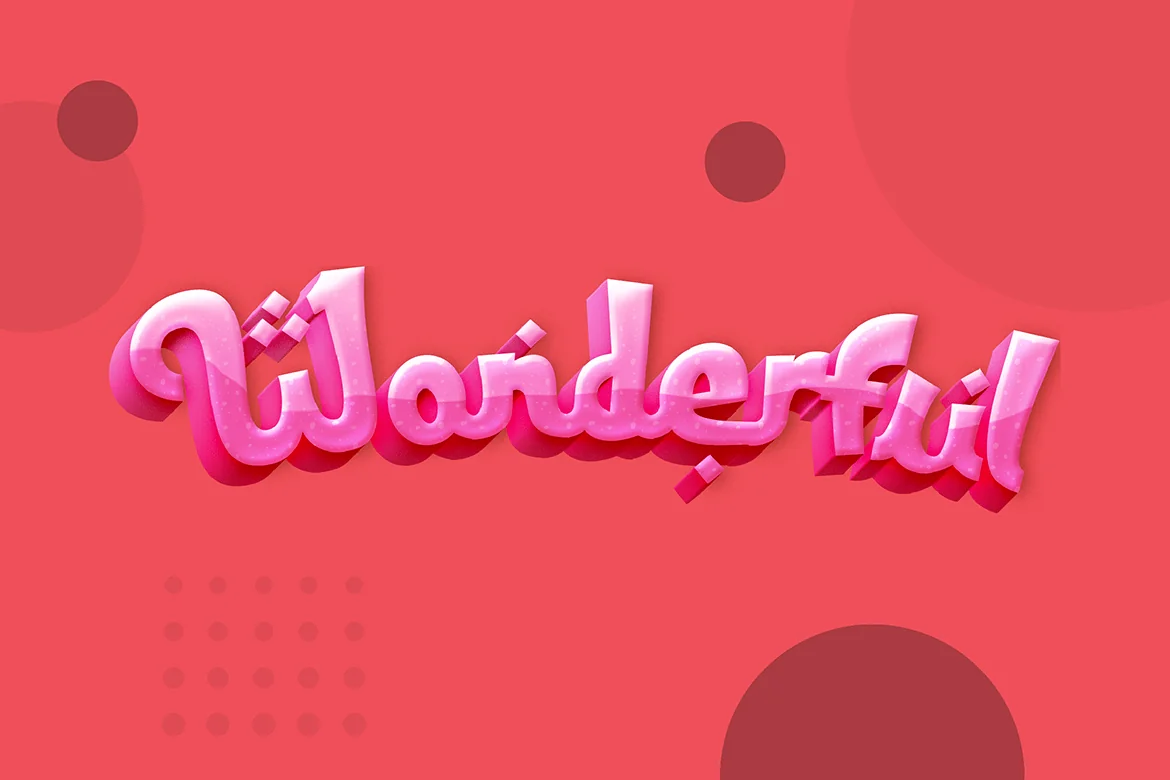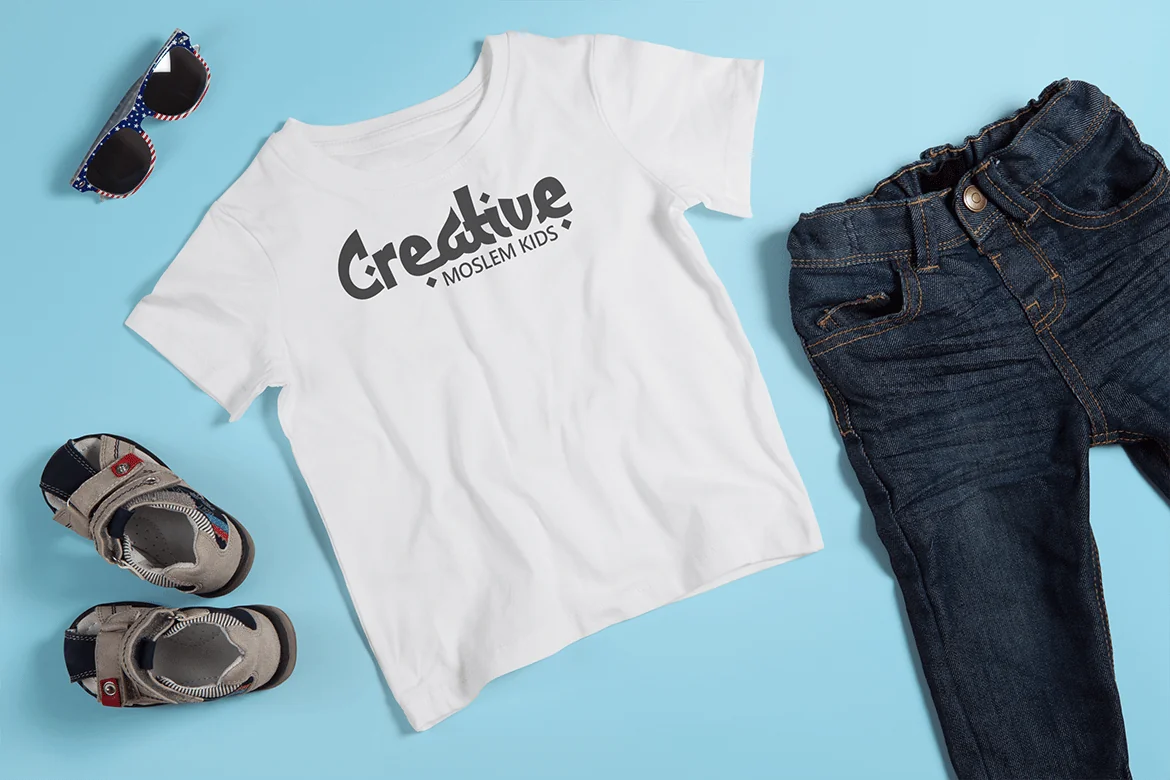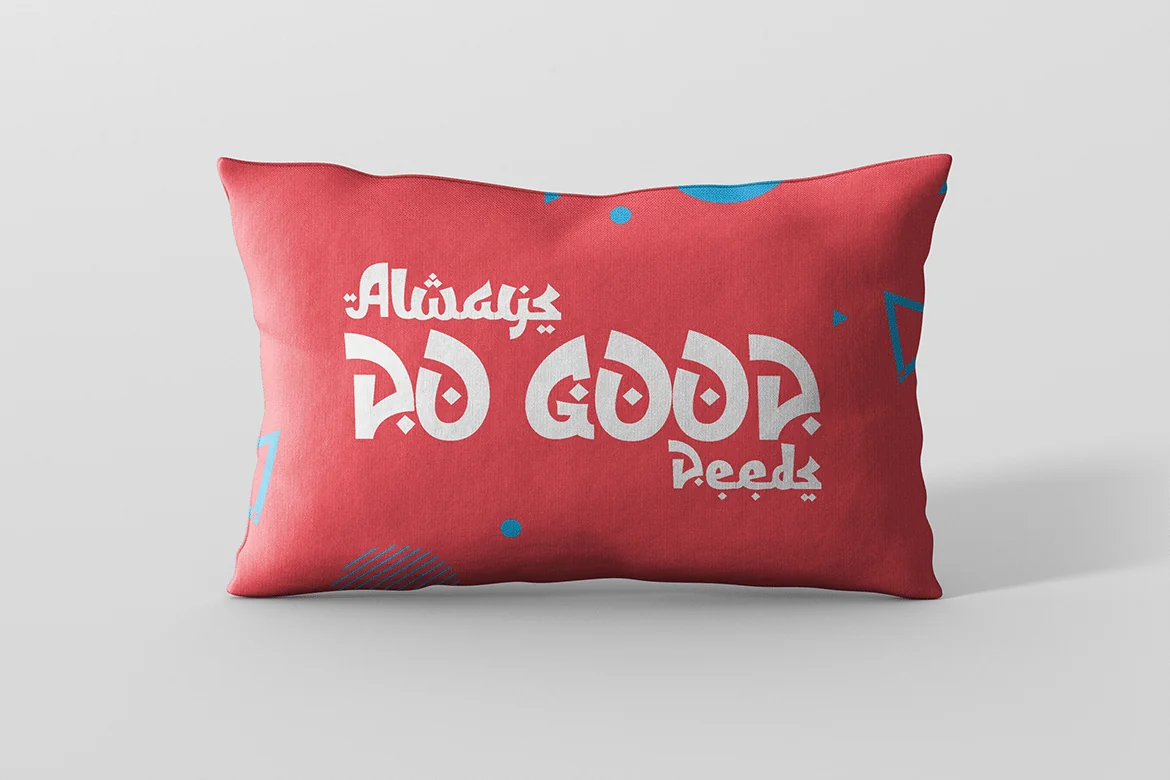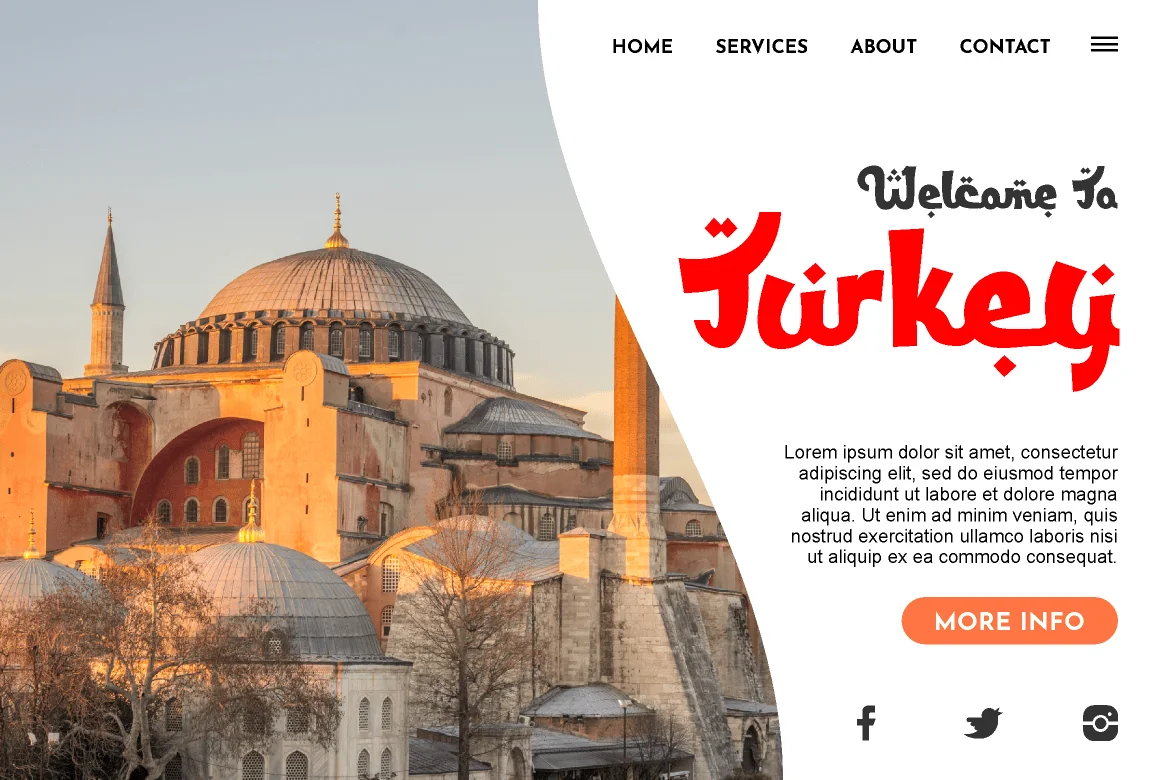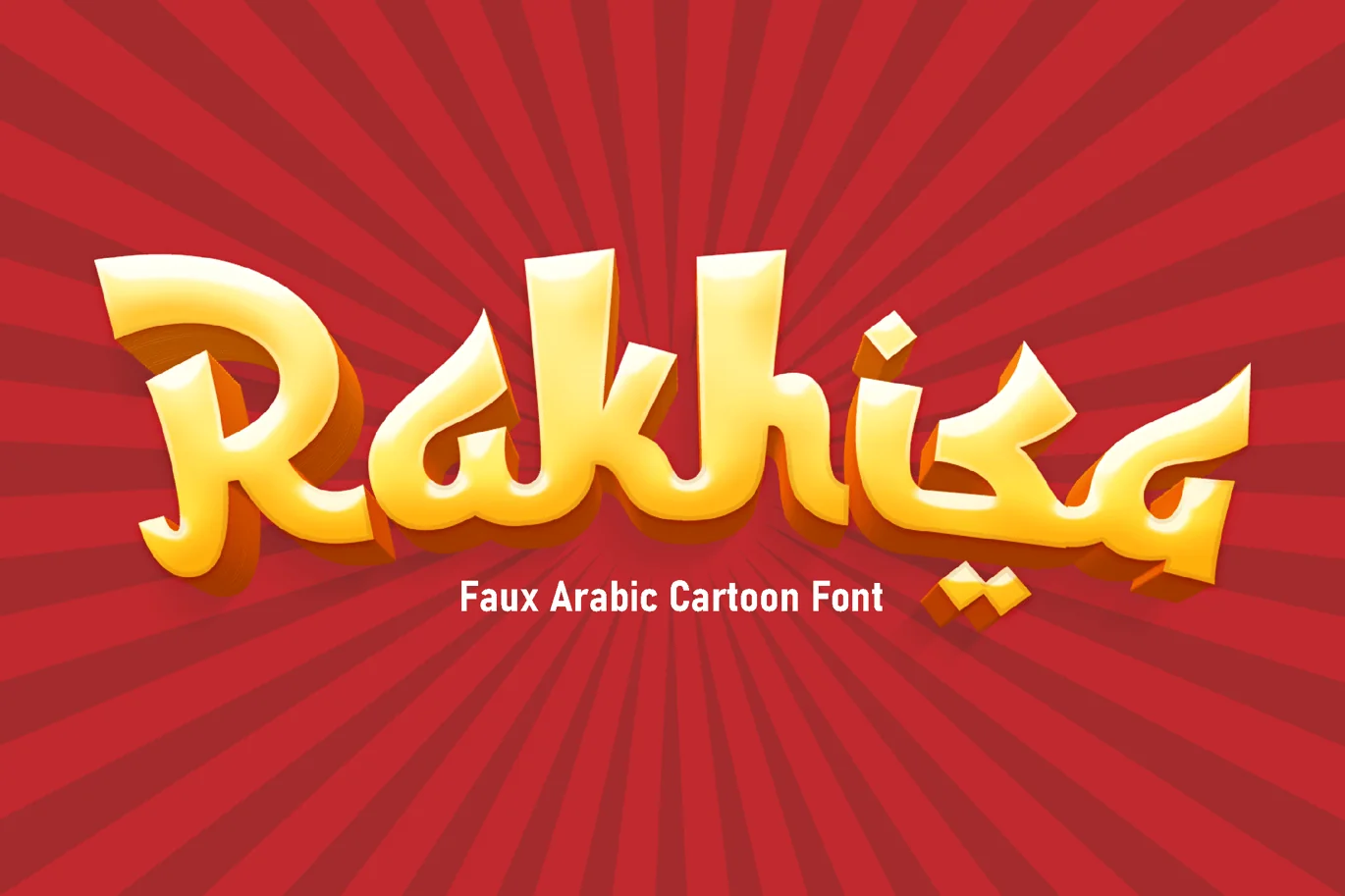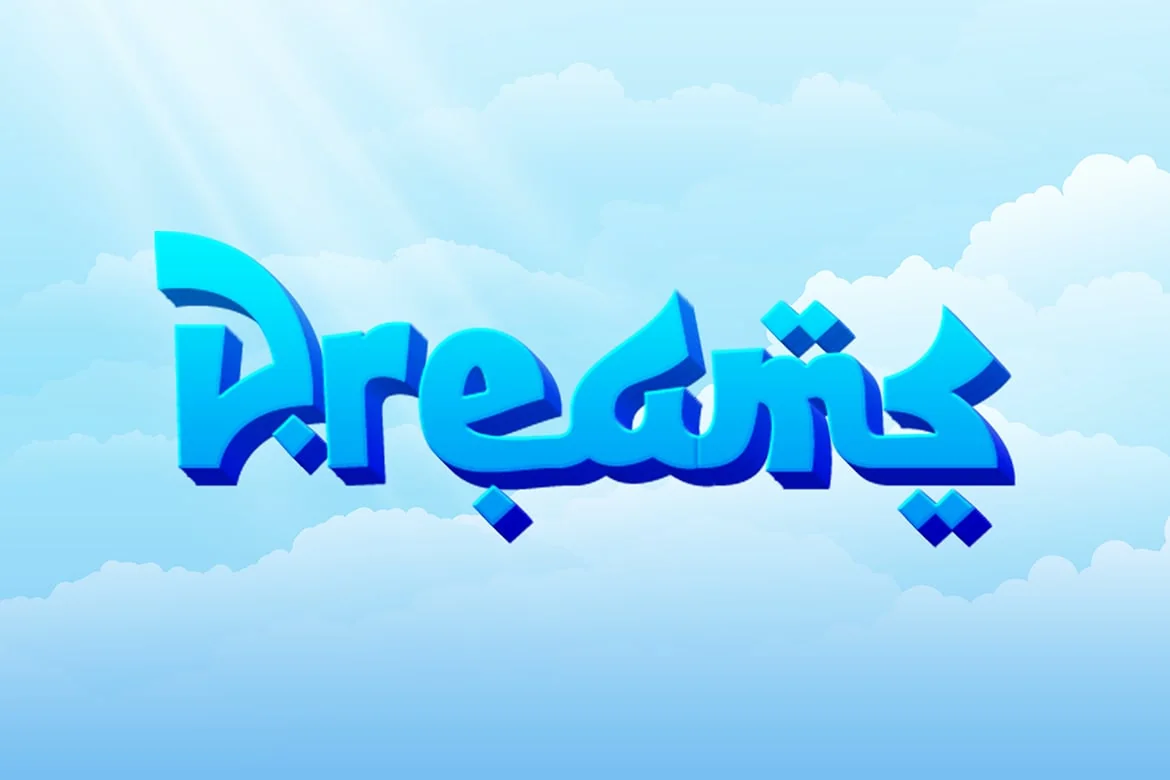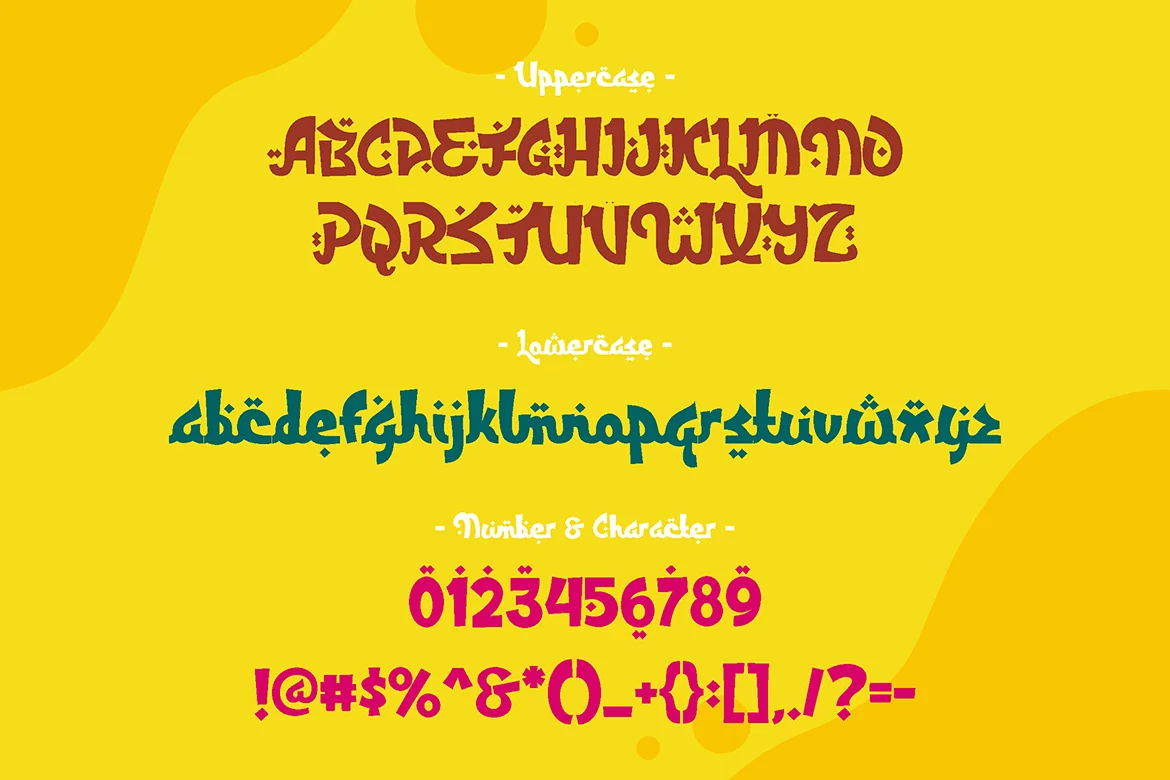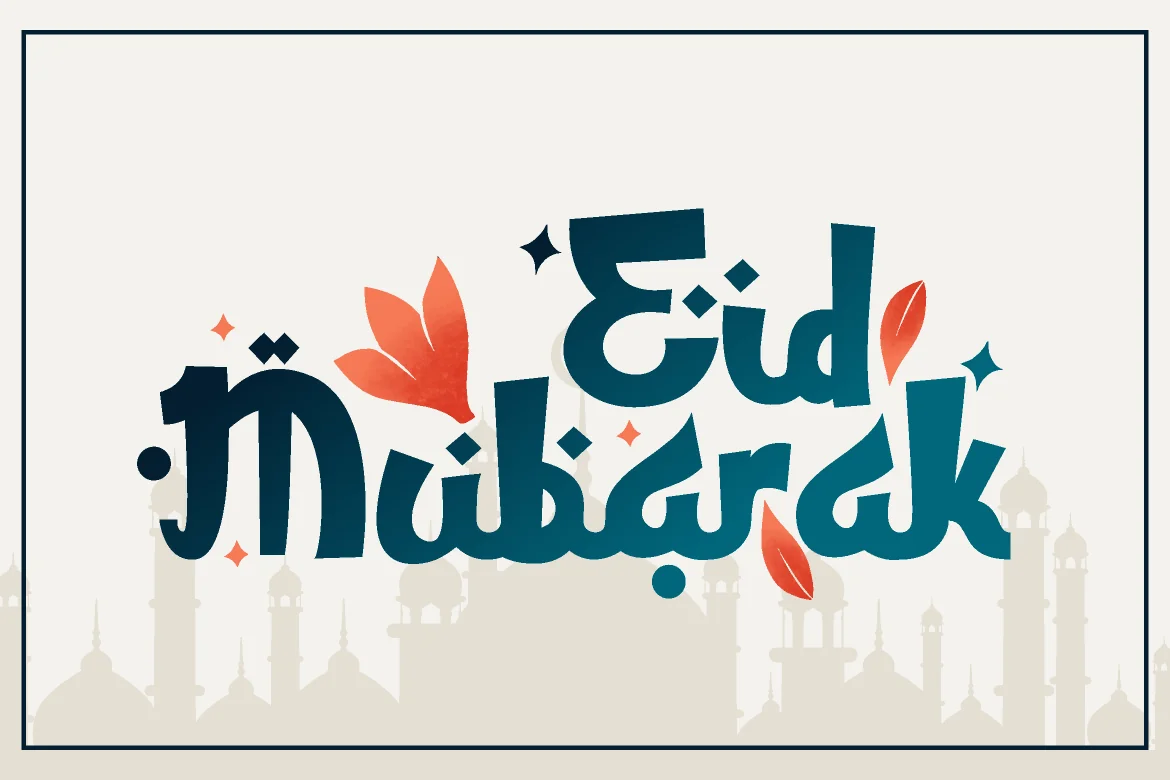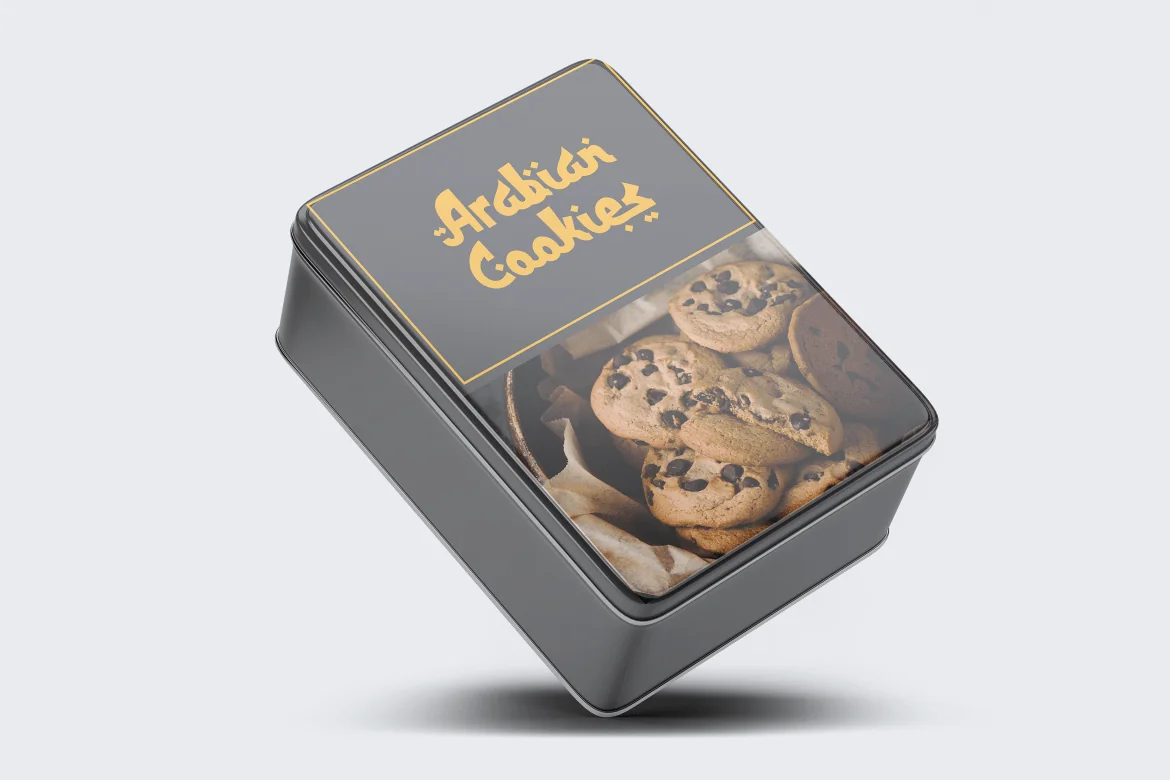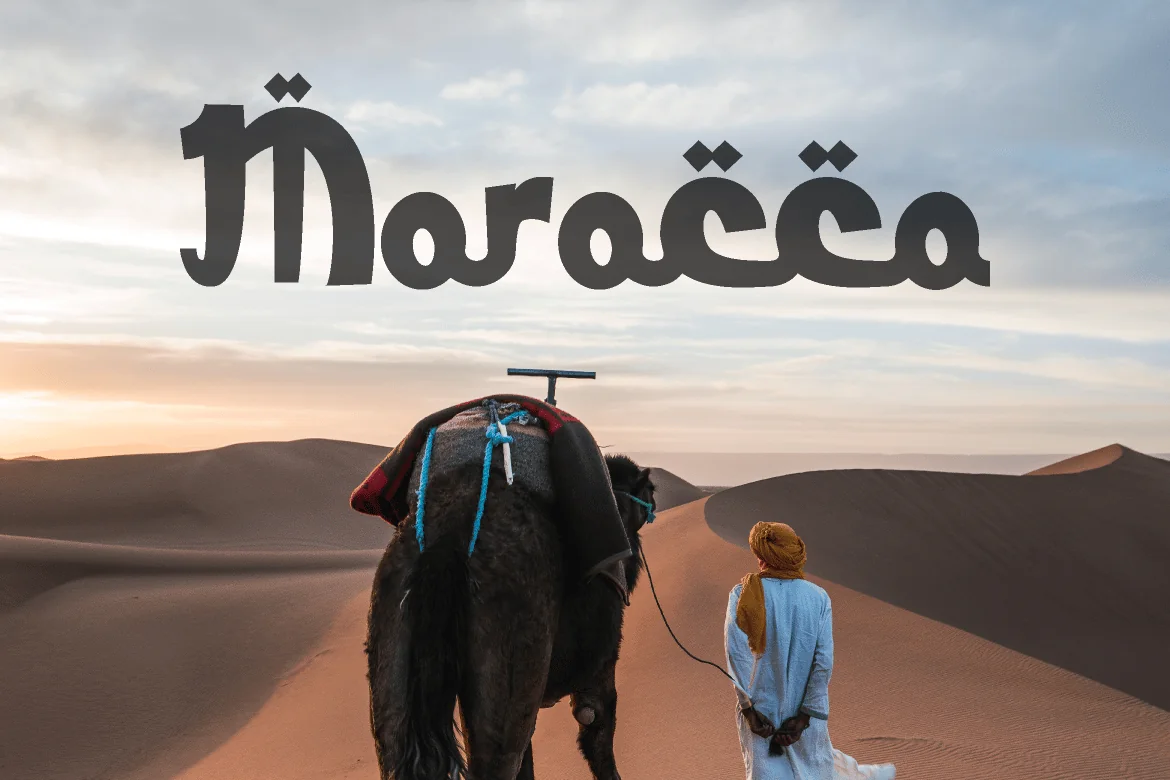
Rakhisa – cartoon faux arabic font
Rakhisa took the ethnic look of arabic symbol and then, adding some bold and cartoony shape in it.
The readability is so good, while keeping it’s middle east vibe, and also huge smile and joy in it.
Suit perfectly for website headline, poster, traveling magazine, children books, kids games, and so on.